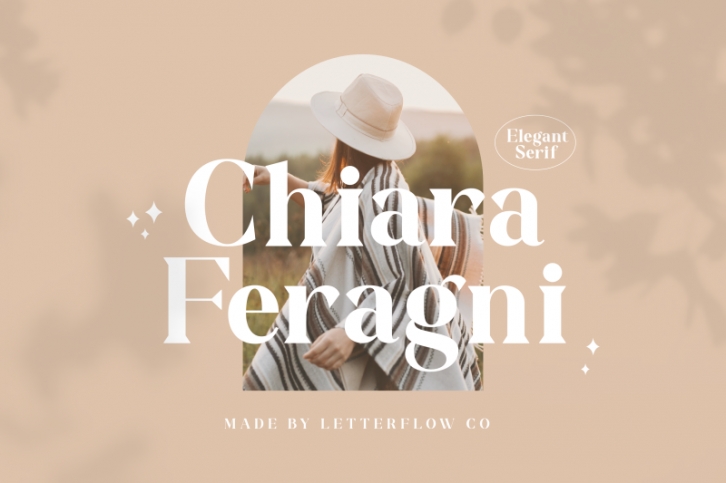
Chiara Feragni is a classic and assertive serif font. No matter the topic, this font will be an incredible asset to your fonts’ library, as it has the potential to elevate any creation.